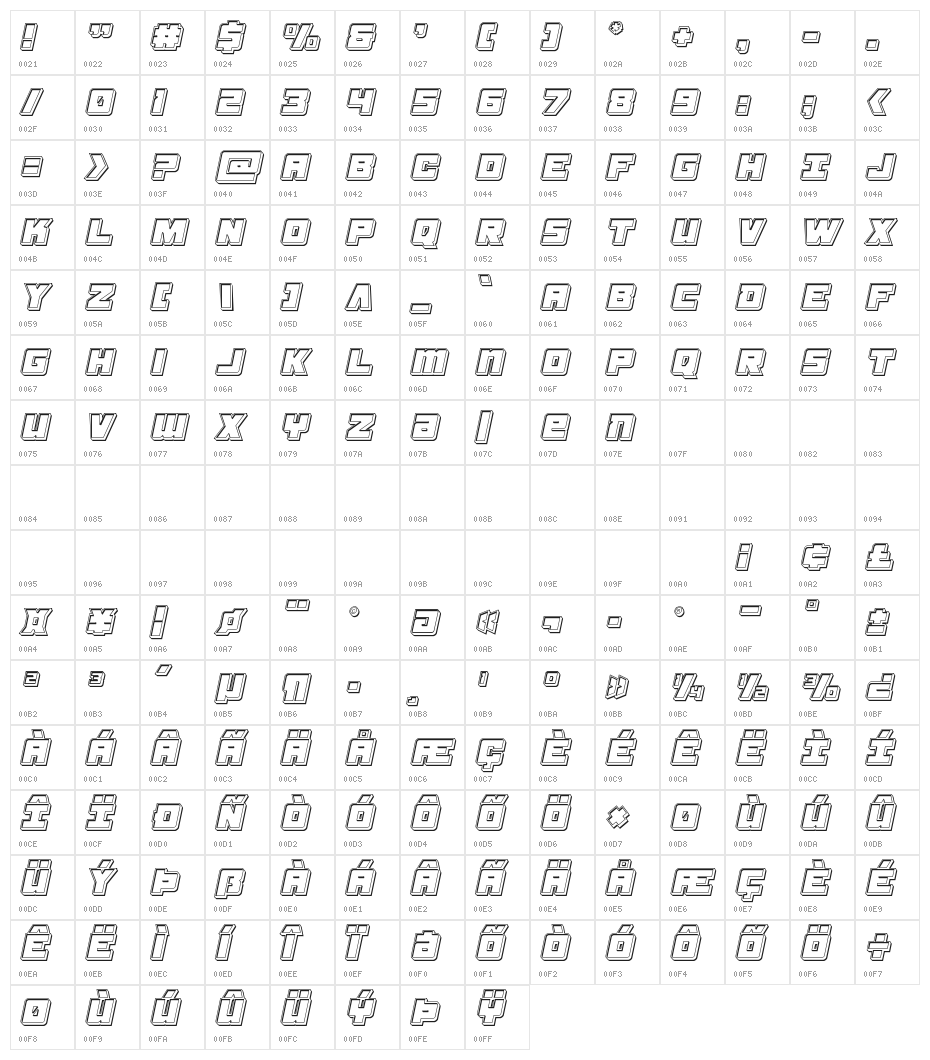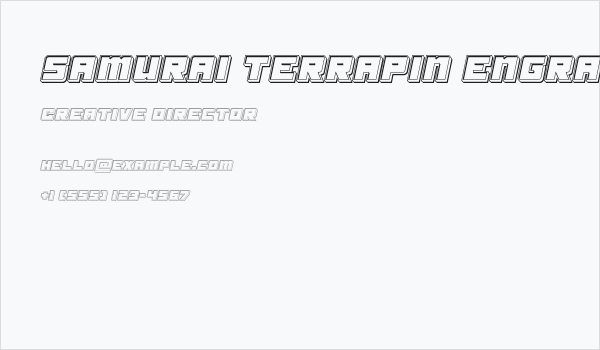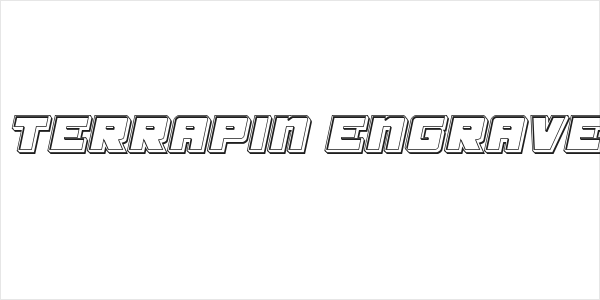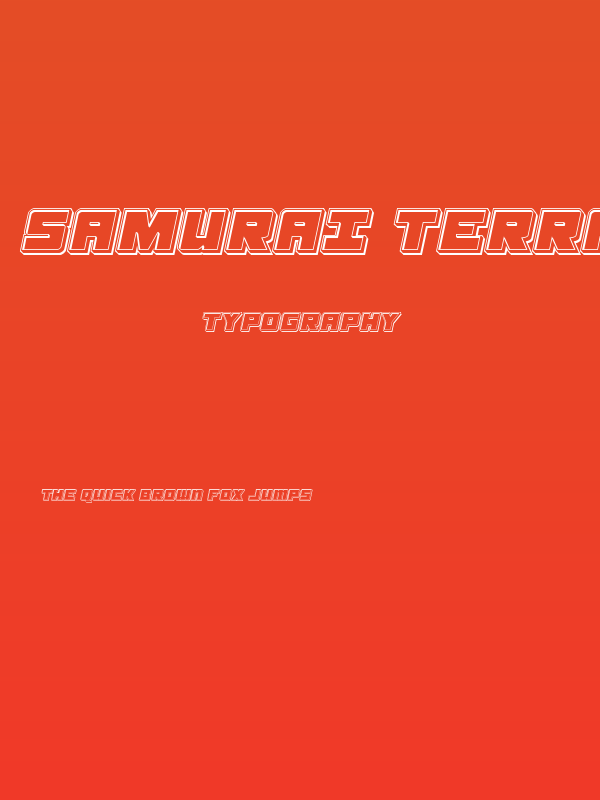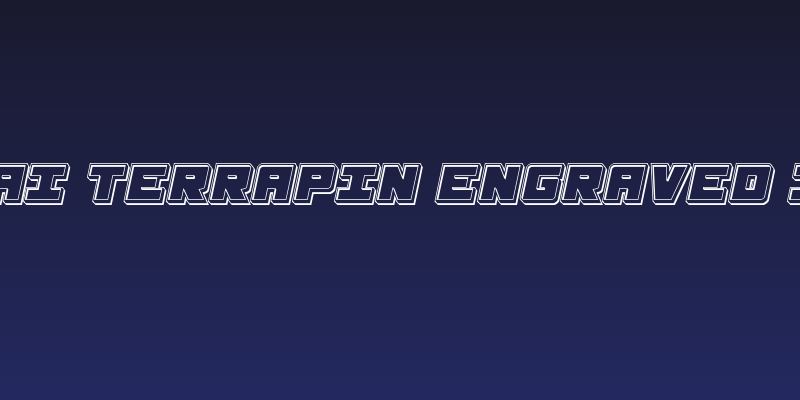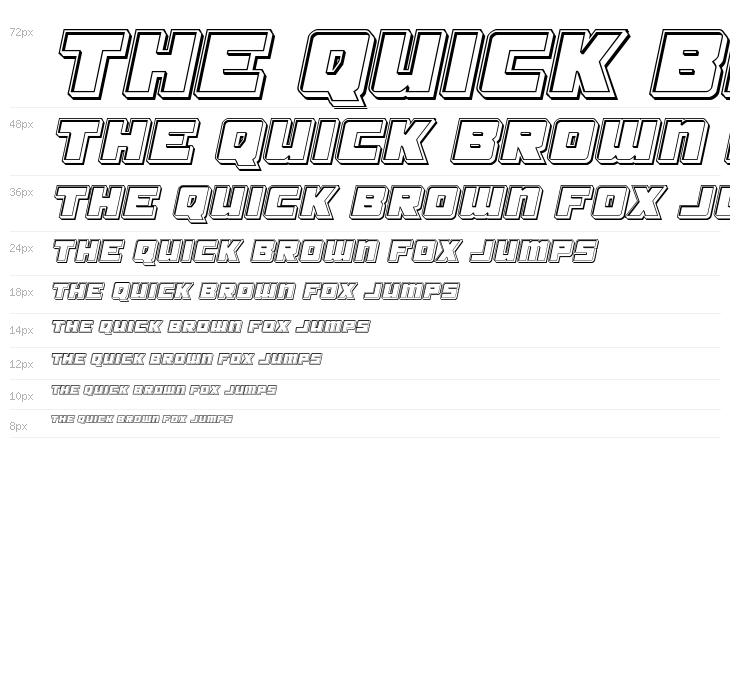
Samurai Terrapin Engraved Italic Font
Samurai Terrapin Engraved Italic Description
This font features a bold, engraved style with a distinct italic slant, giving it a dynamic and modern appearance. The characters are outlined, creating a three-dimensional effect that enhances its visual impact. The uppercase and lowercase letters maintain a consistent geometric structure, while the numerals and special characters are designed to match the overall aesthetic. The font's strong lines and angles make it suitable for attention-grabbing designs, while the italicized form adds a sense of movement and energy.